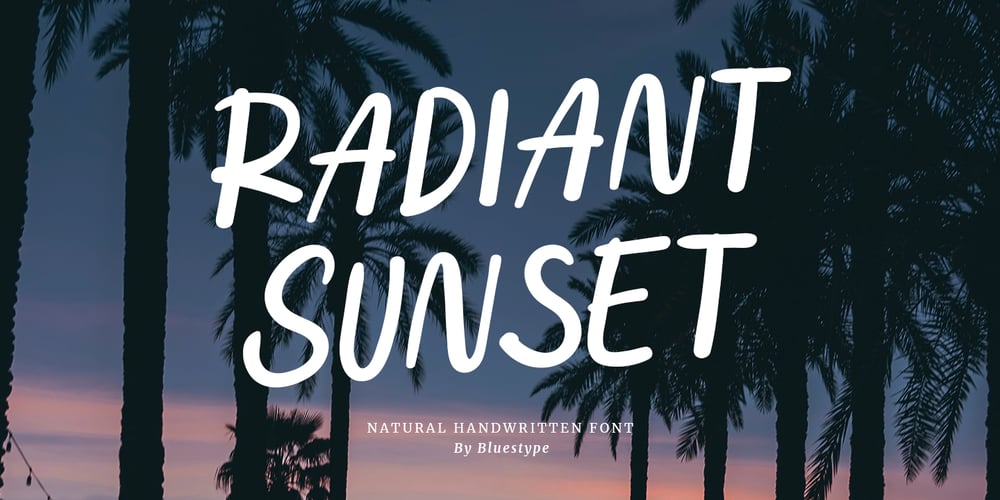
Radiant Sunset Font Family was designed by Jefri Dwi Alfatah and published by Bluestype Studio. Radiant Sunset contains 1 styles and family package options. Radiant Sunset is a beautifully crafted handwritten font that captures the essence of natural, flowing penmanship. Each character is designed with meticulous attention to detail, evoking a sense of warmth and authenticity. Perfect for personal projects, invitations, and branding, Radiant Sunset adds a touch of elegance and charm, reminiscent of a serene evening’s glow. Whether used for headings or body text, this font delivers a unique, heartfelt touch to any design.